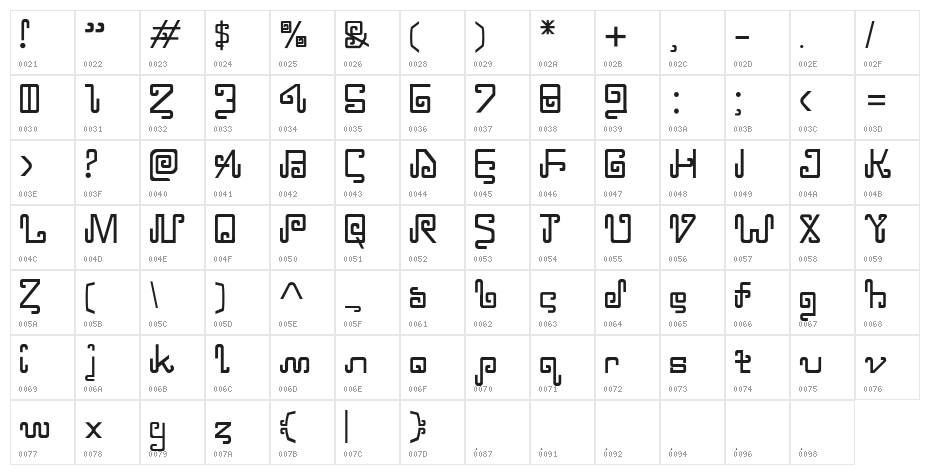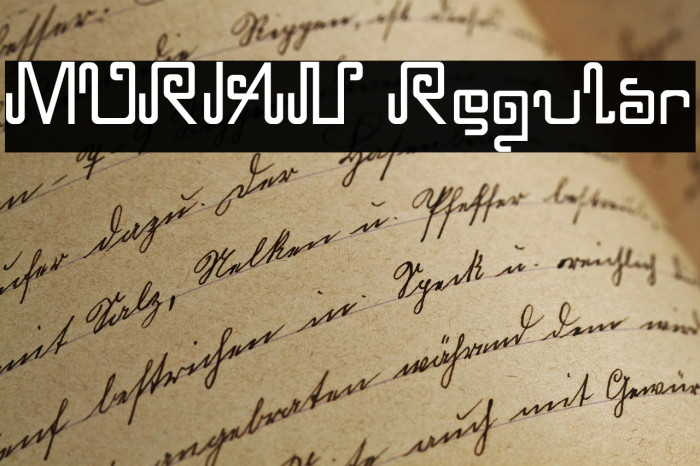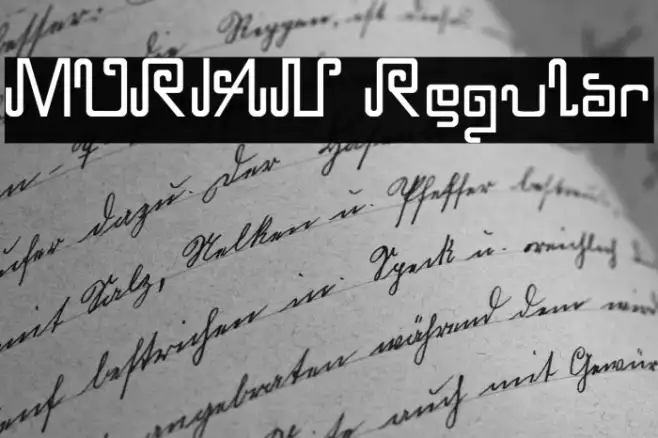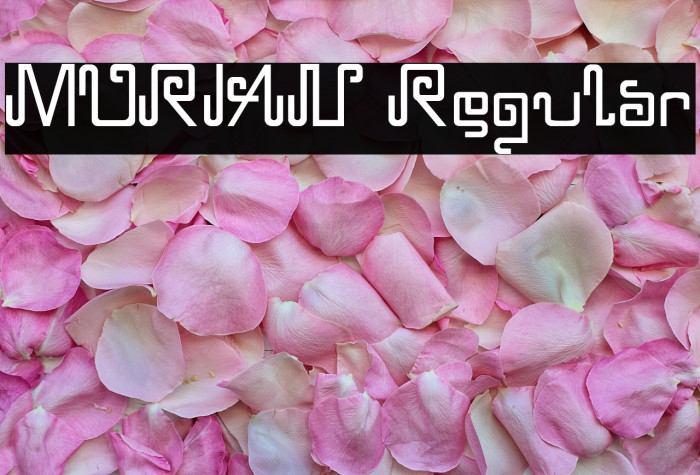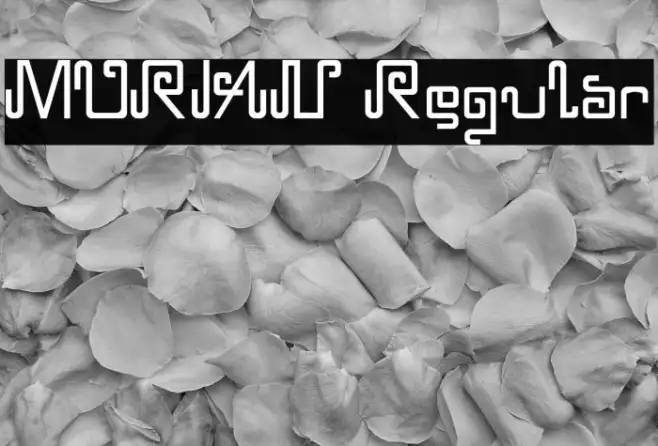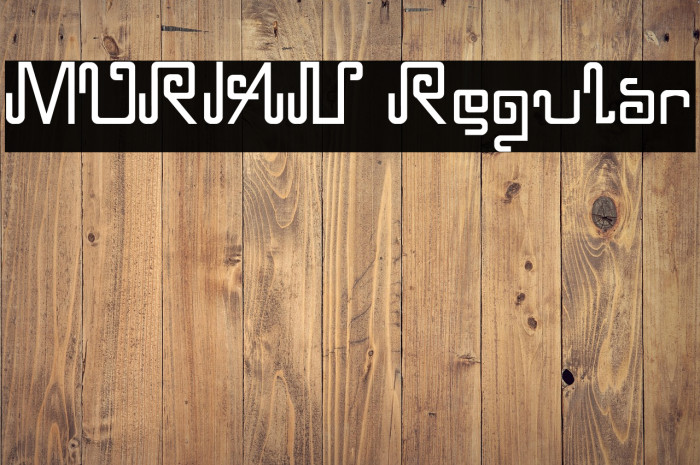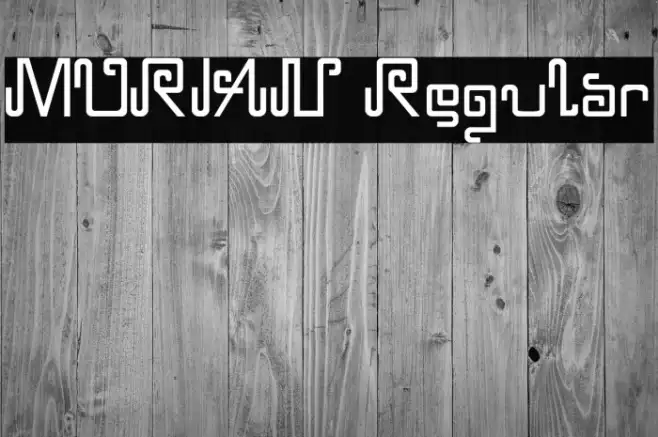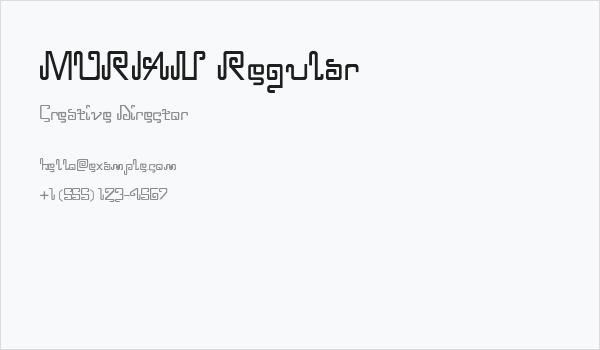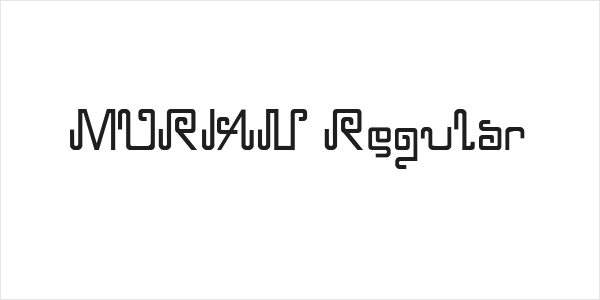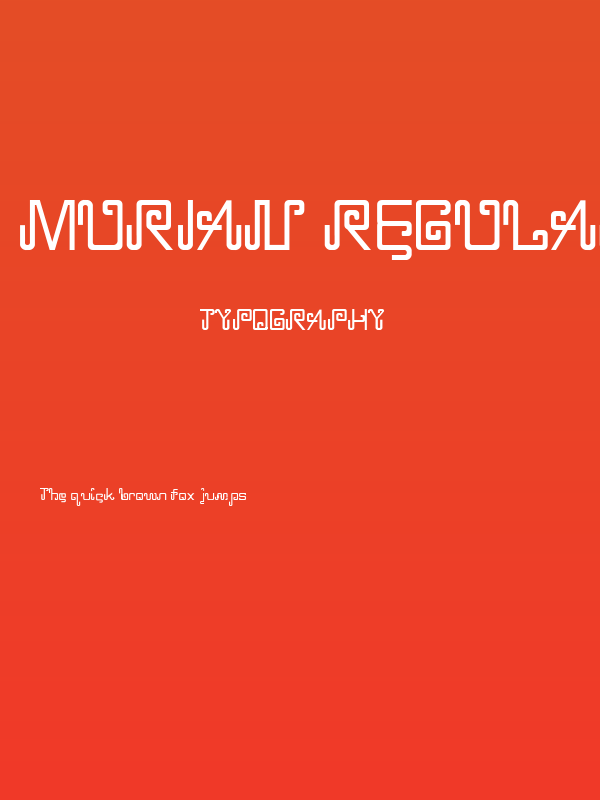
MURIAN Regular Font
MURIAN Regular Description
This font features a unique and modern design with a geometric and futuristic aesthetic. The characters are composed of bold, interconnected lines that create a maze-like appearance. The uppercase and lowercase letters maintain a consistent style, with angular and rounded elements that give the font a distinctive look. The numerals and special characters follow the same design principles, ensuring uniformity across all glyphs. This font's intricate design makes it stand out, ideal for projects that require a bold and unconventional typeface.